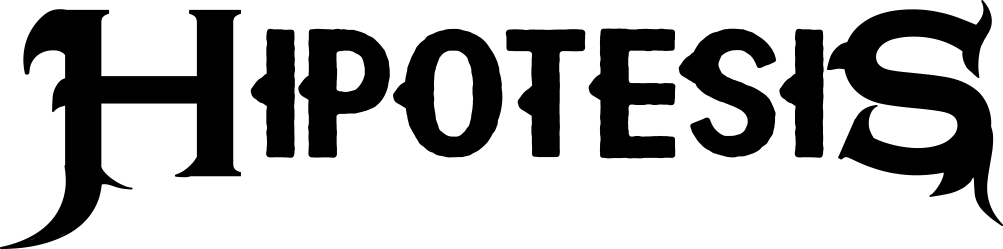
Hipotesis Font
Download Hipotesis and guarantee a sharp and solid tone for your final design even at the very beginning of your work. The set of numerals is limited and there’s no lowercase edition either.
So leave the Caps Lock on or off and the only difference it’ll make is a more intimidating touch that the capital version retains. Download this Western font and easily give a fancy modern look to your signage, logotypes, titles, and more.